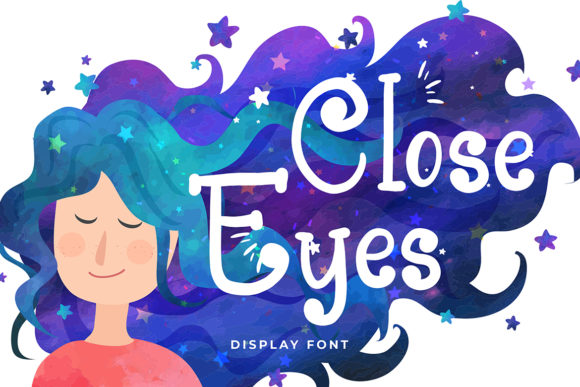
Indulge in the enchanting realm of Close Eyes Font, a captivating display masterpiece that will ignite your creativity. With every stroke, this whimsical typography dances across your screen, inviting you to embrace its dreamy and playful essence.
Crafted by the visionary hands of Formatikastd, Close Eyes Font embodies the charm of a modern fairy tale. Its delicate swirls and enchanting ligatures pirouette across your canvas, creating an ethereal atmosphere that will leave you spellbound.
Immerse yourself in the boundless possibilities of Close Eyes Font. Let your imagination soar as you design captivating logos that dance with whimsy, eye-catching headlines that spark curiosity, and enchanting social media posts that captivate your audience.
From whimsical invitations to ethereal branding, Close Eyes Font is a versatile chameleon that seamlessly adapts to any design aesthetic. Its playful nature brings a touch of magic to children's books, while its sophistication lends an air of enchantment to wedding stationery.
Whether you seek to create enchanting designs that linger in the memory or simply add a spark of whimsy to your everyday projects, Close Eyes Font is your ultimate companion. Its enchanting beauty and boundless versatility will empower you to weave tales that captivate and inspire.
Embrace the allure of Close Eyes Font today and let your imagination take flight. With its enchanting swirls and ethereal charm, this display masterpiece will transform your designs into whimsical works of art.